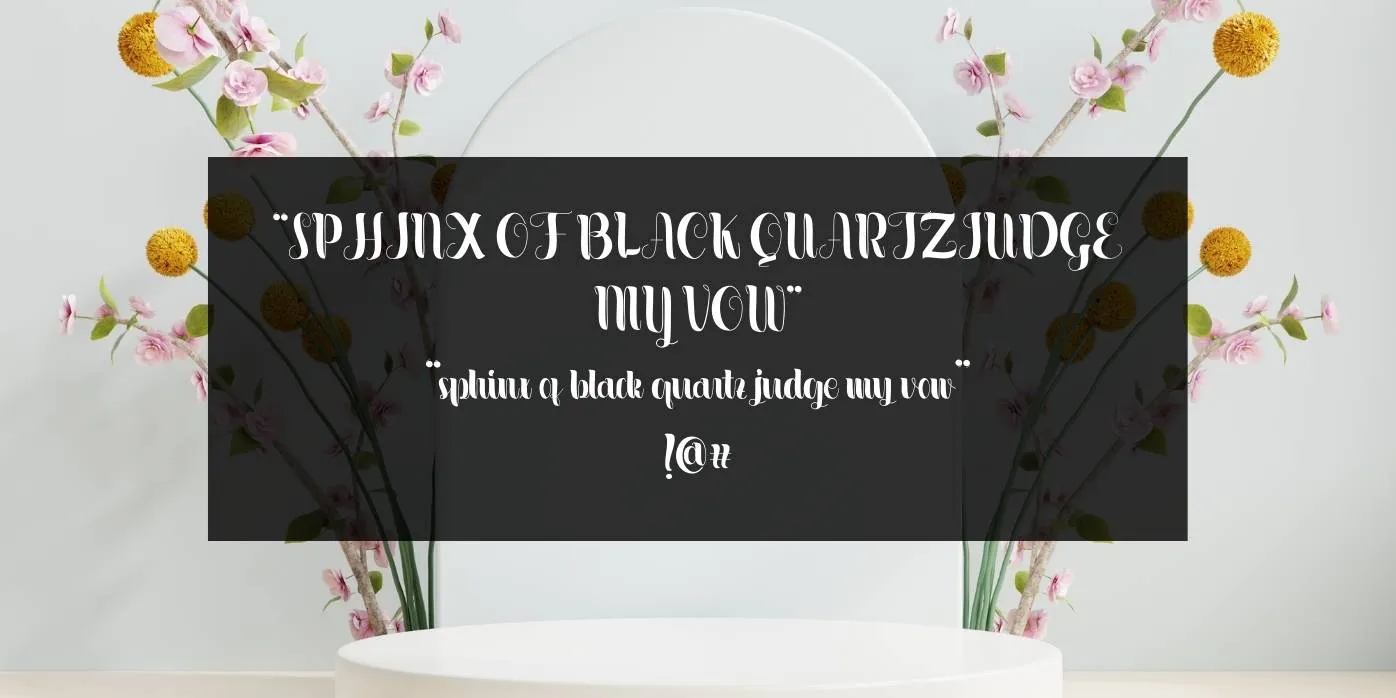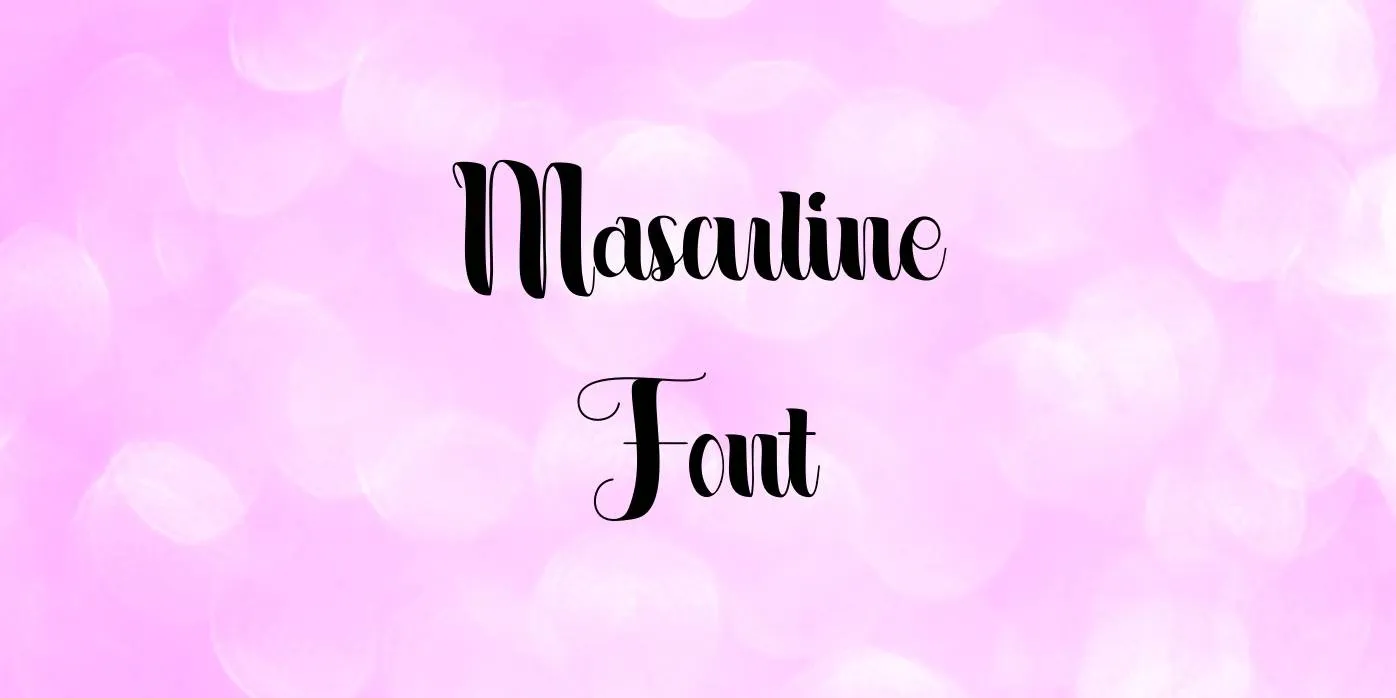
Masculine Font
Here, we are consulting on a very famous typeface known as Masculine Font. It belongs to the calligraphy font family. This stunning font was created by Billy Argel in 2001. It is a very popular typeface and has been used by many big brands.
This font is specially designed for headlines, titles, and logos. You can use it in both digital and print media. This font is available in two styles- Regular and Bold. Both of these styles are very different from each other but they are equally amazing.